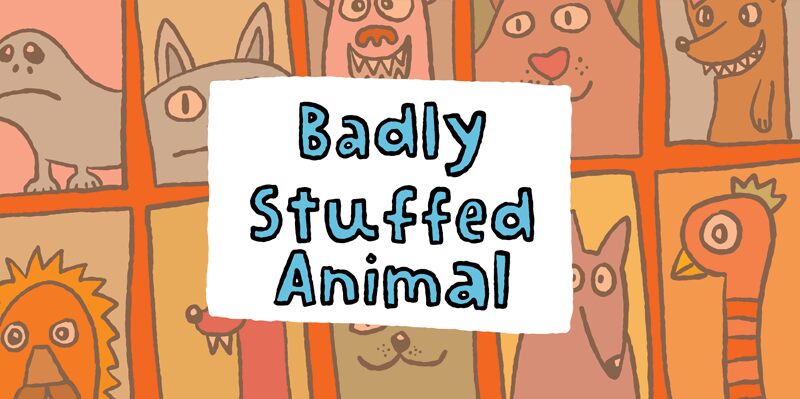
Badly Stuffed Animal, by the imaginative Pizzadude, is not your average display font. Its cartoonish allure and outlined style hark back to the whimsical world of childhood nostalgia. Bold and unapologetically quirky, it embodies the imperfections of a well-loved toy with its naive, irregular lines and blobby pen strokes. Whether for a playful brand identity or an enchanting children's book cover, this font infuses any creative project with an organic, handmade charm that is both ordinary and endearing.
Embrace the unique essence of Badly Stuffed Animal to bring warmth and personality to your designs; it's perfect for when you need a touch of innocence mixed with a dash of delightful awkwardness.